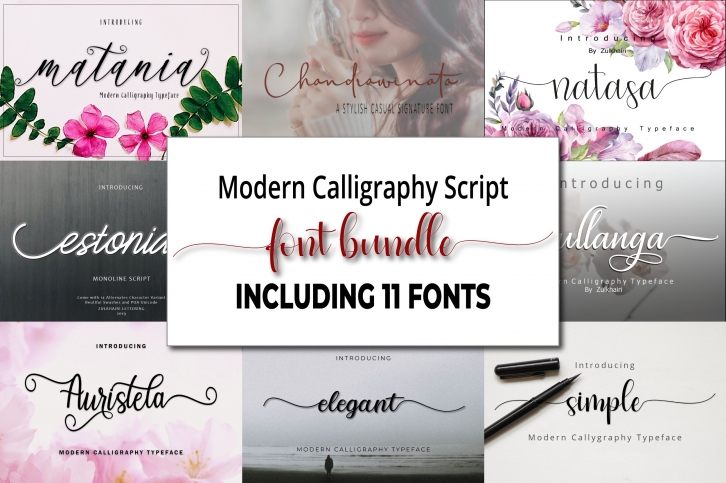
Modern Calligraphy bundle is a beautiful font that was designed by zulkhairilettering. It's a great choice for designers and creatives who need such a font. It was released on March 10, 2021 and the file size is 5.64 MB. Modern Calligraphy bundle may give a more youthful, expressive and casual look to your project. It is a very beautiful, refined, elegant, and high-quality font.